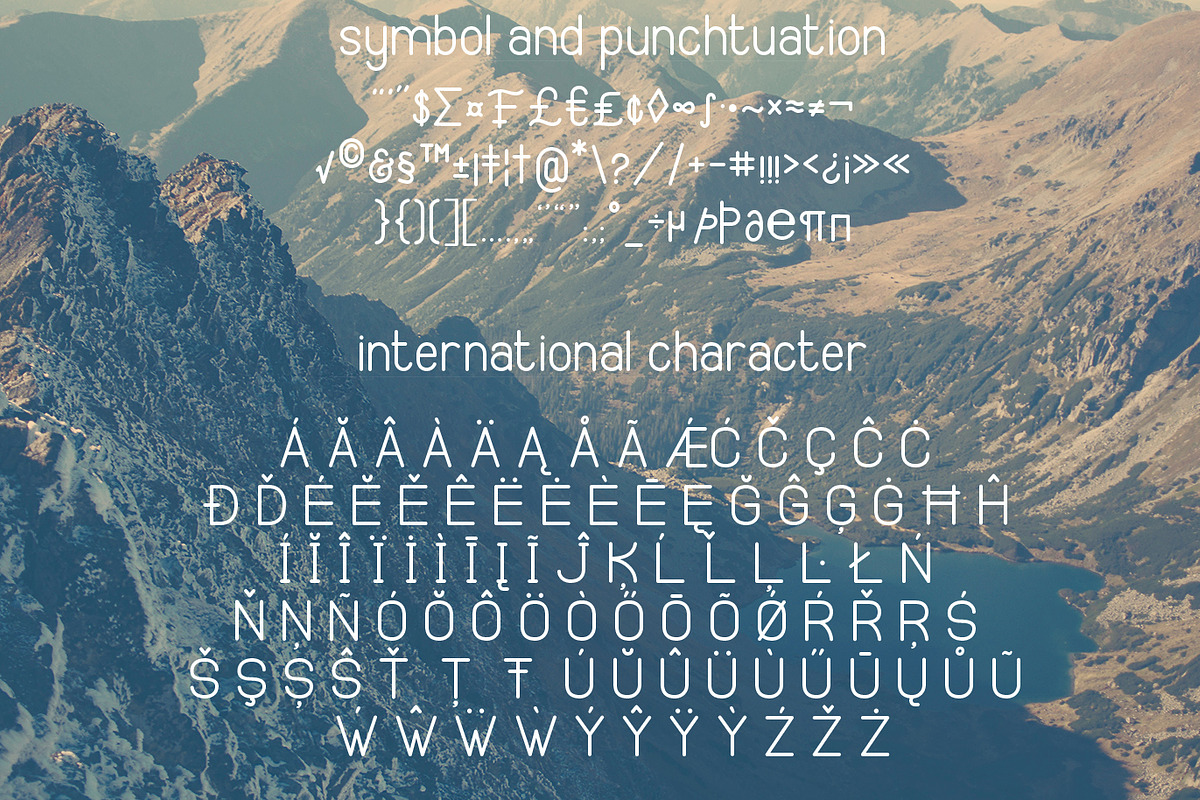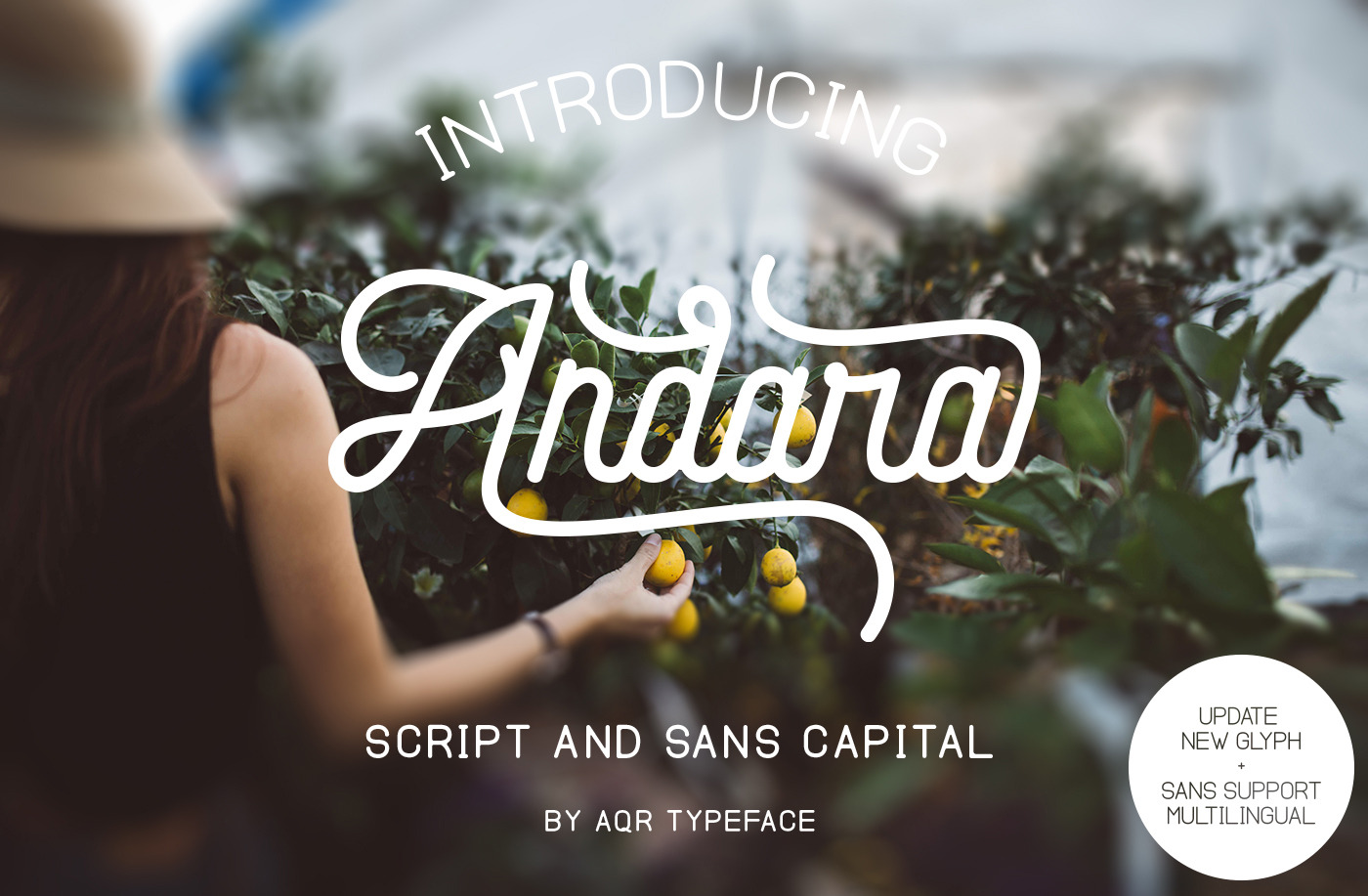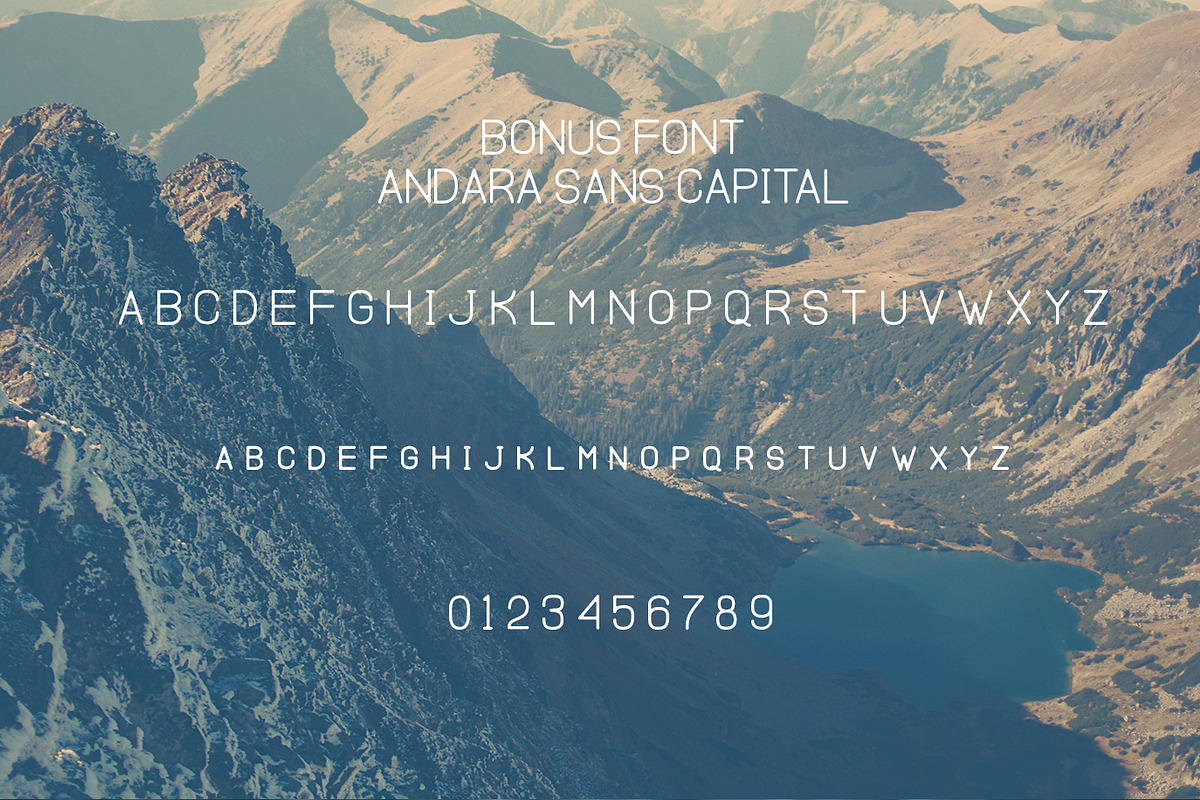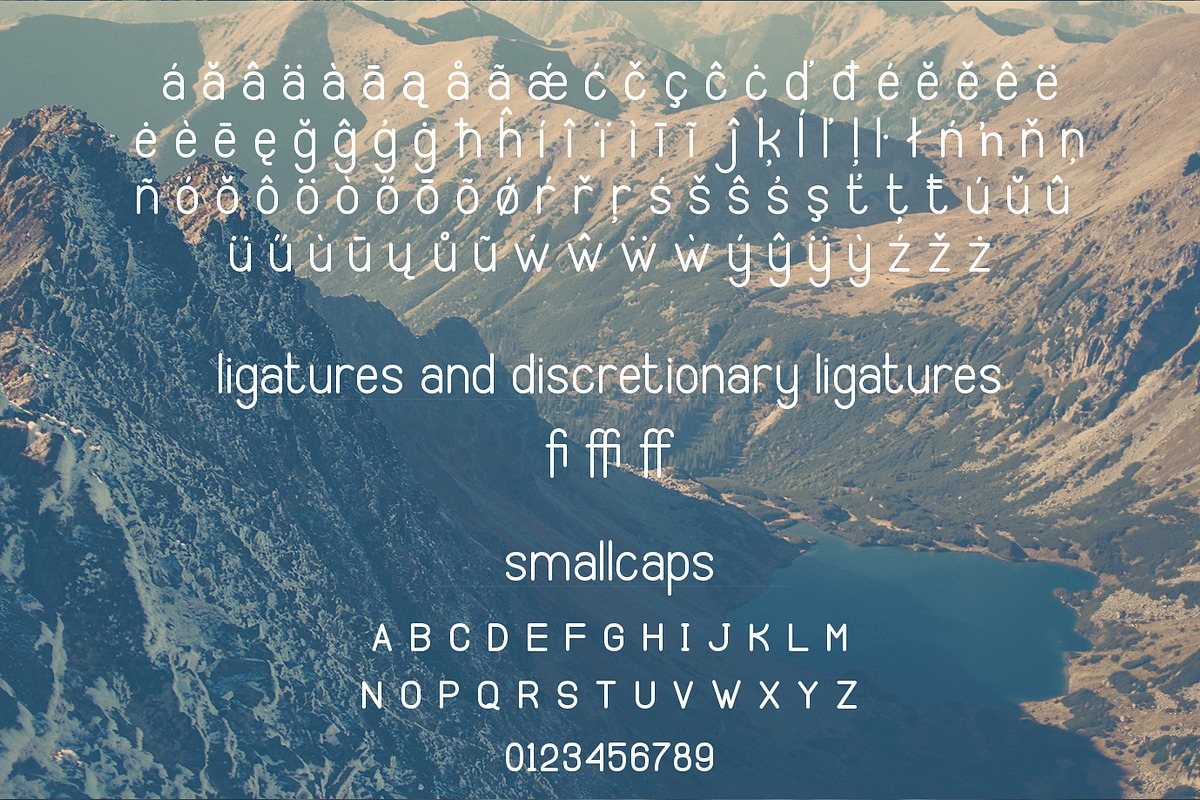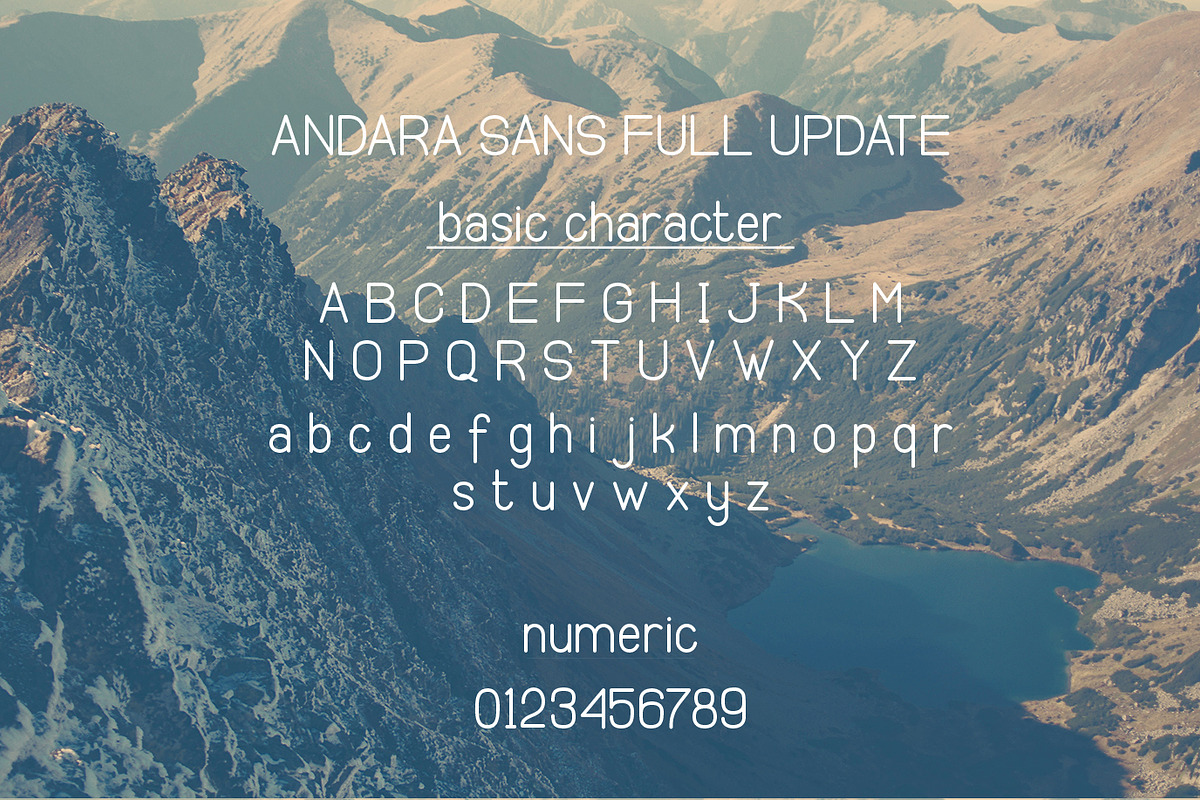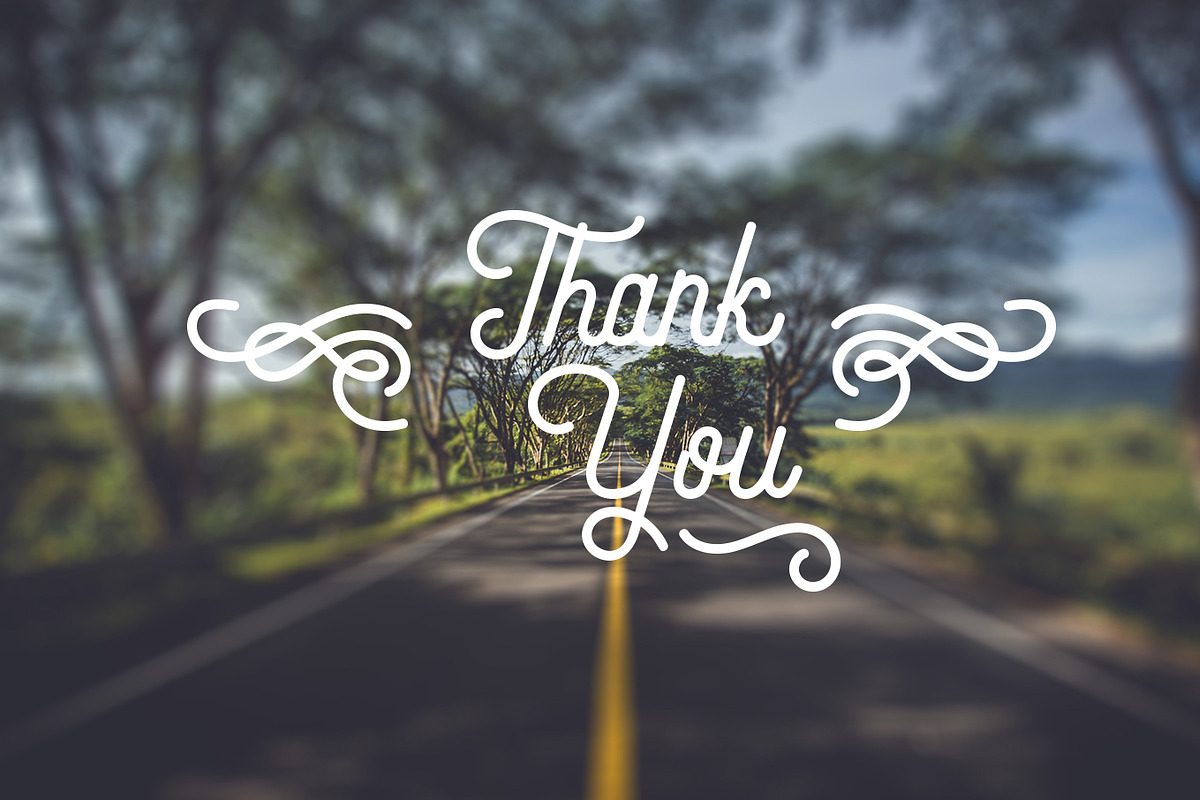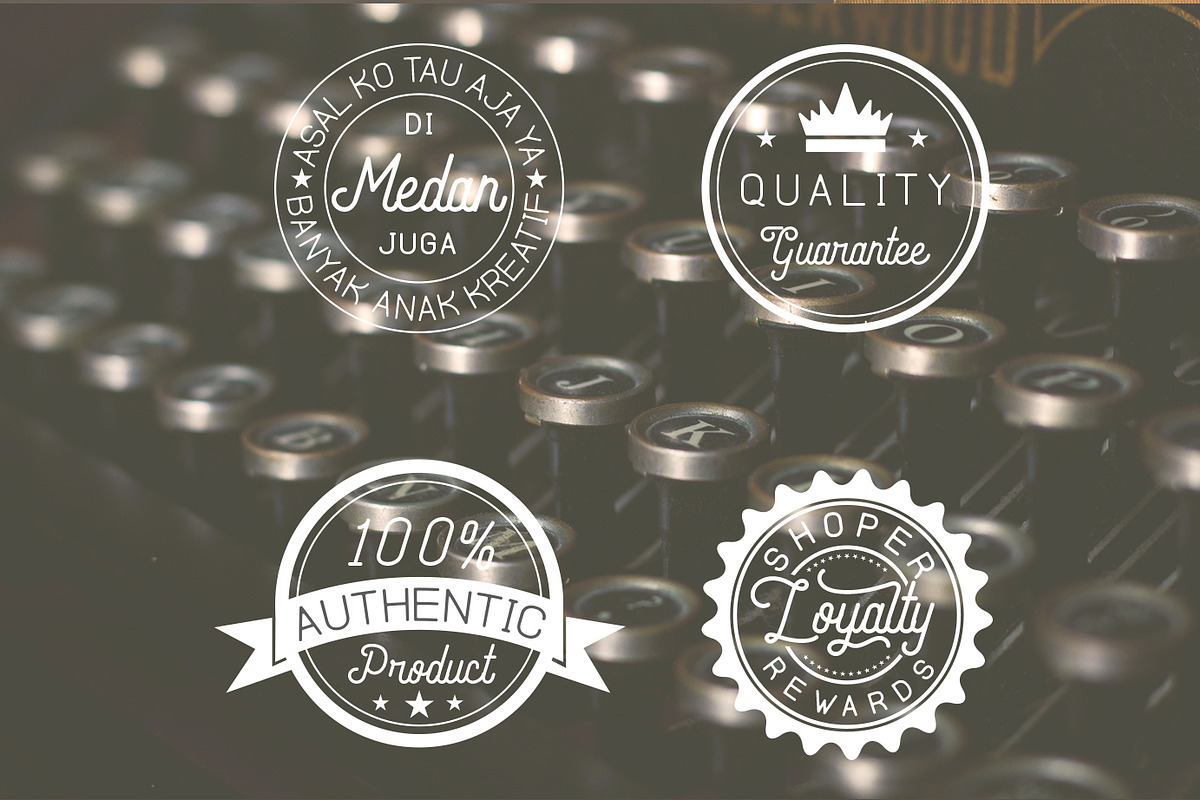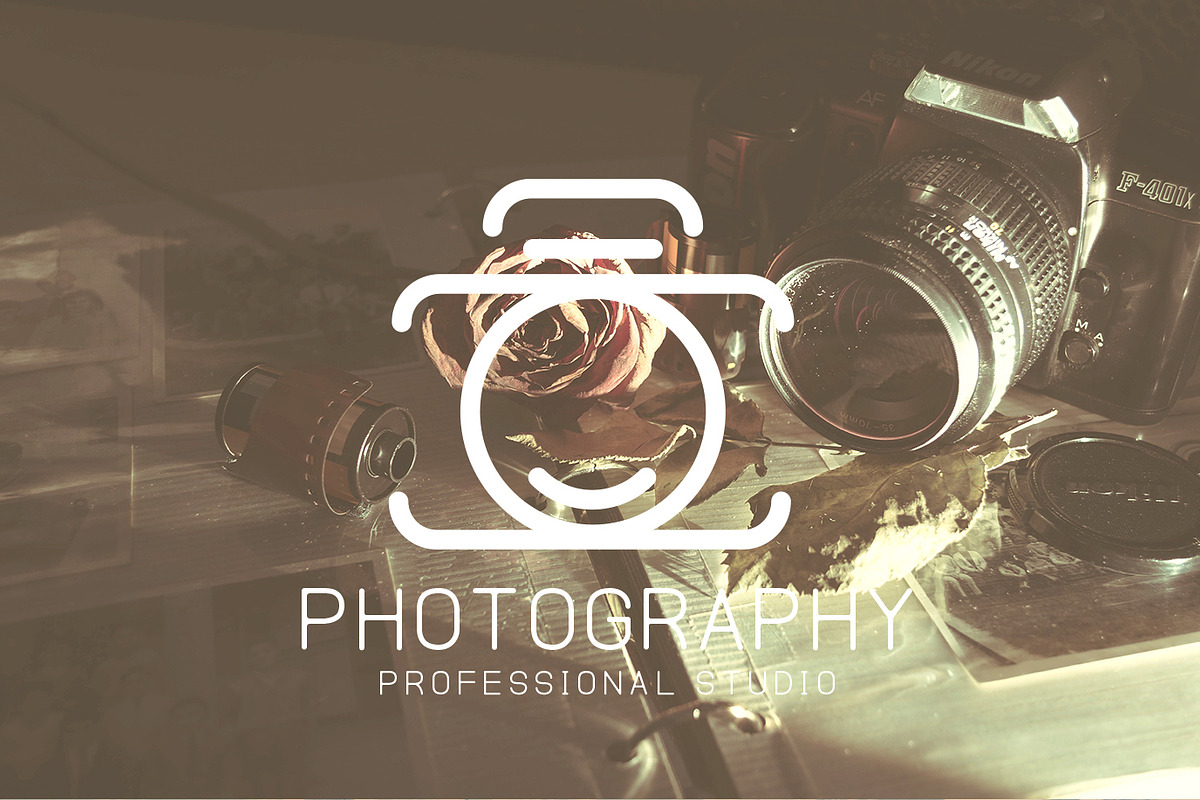
Andara is a manual lettering with type soft and sans, These two font script and sans is a great combination for any product and bussines. Andara comfortable for vintage design, classic design, photography, branding design and many more.
Andara Script Featured With :
- Basic Character and Multilingual Character
- Stylistic Sets - Contextual Alternates
- Swash Alternates
- Standart Ligatures
- Discretionary Ligatures
- Fractions
- Ornaments
- Initial and Terminal Forms
Andara Sans Featured With :
- Small Caps
- Numeral